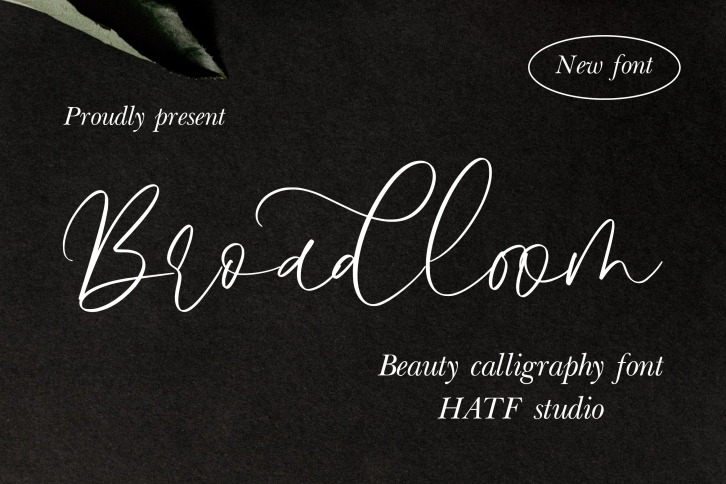
Broadloom is a beautiful font that was designed by Hatf Type. It's a great choice for designers and creatives who need such a font. It was released on November 6, 2021 and the file size is 12.43 MB. Broadloom may give a more youthful, expressive and casual look to your project. It is a very beautiful, refined, elegant, and high-quality font.